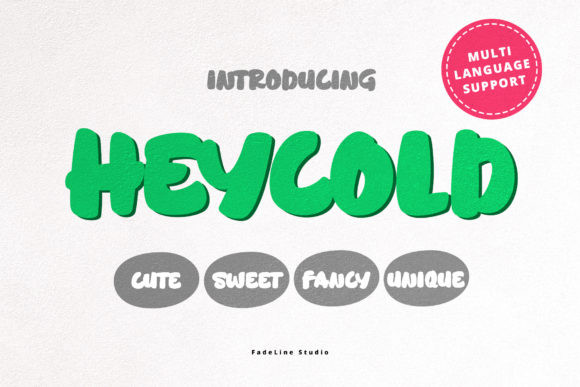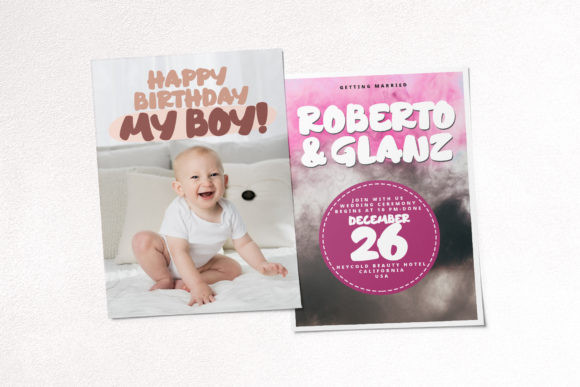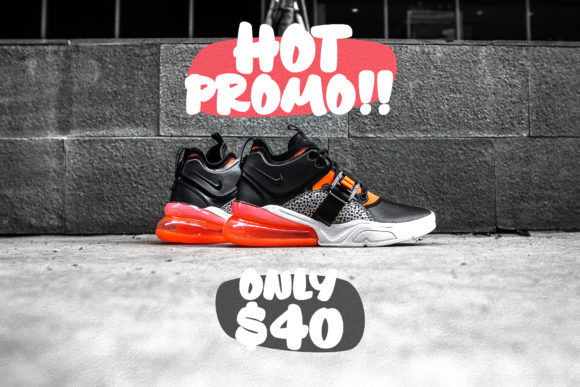
Heycold Font
Heycold is an incredibly cute and bubbly display font. This font is perfect for children themed designs, especially when combined with bright colors.